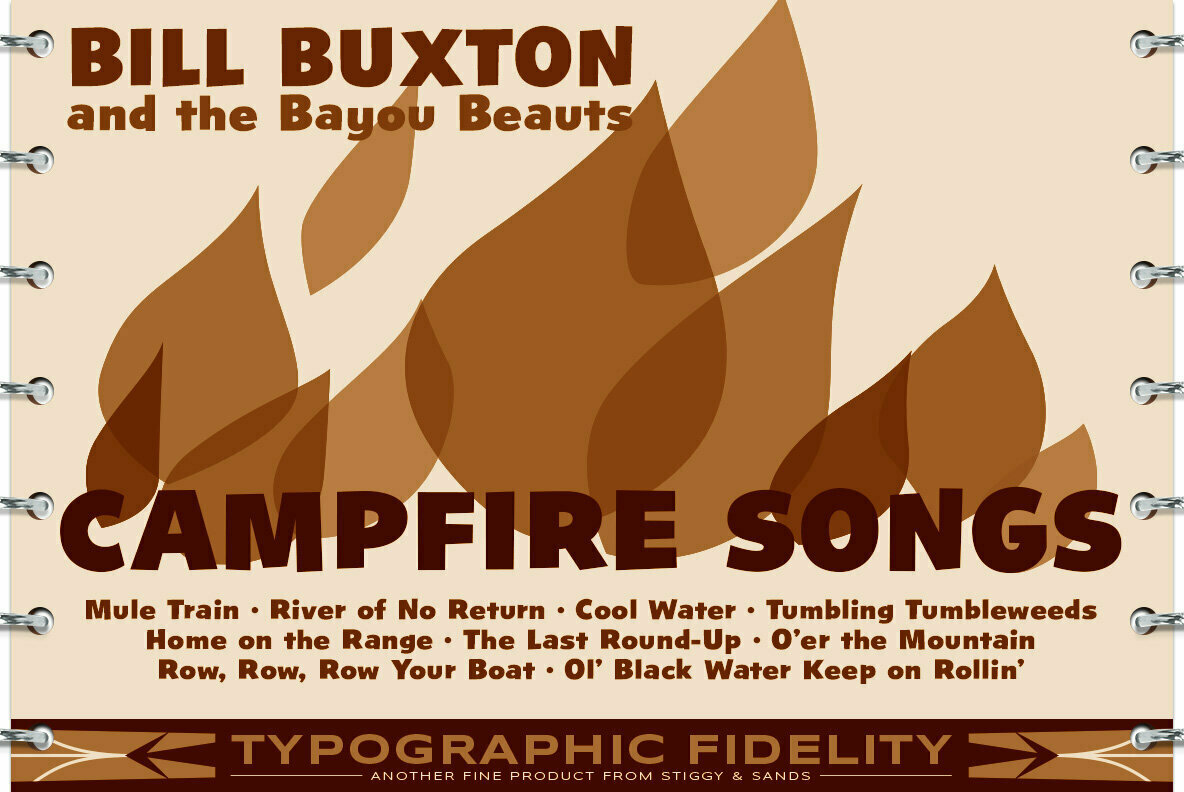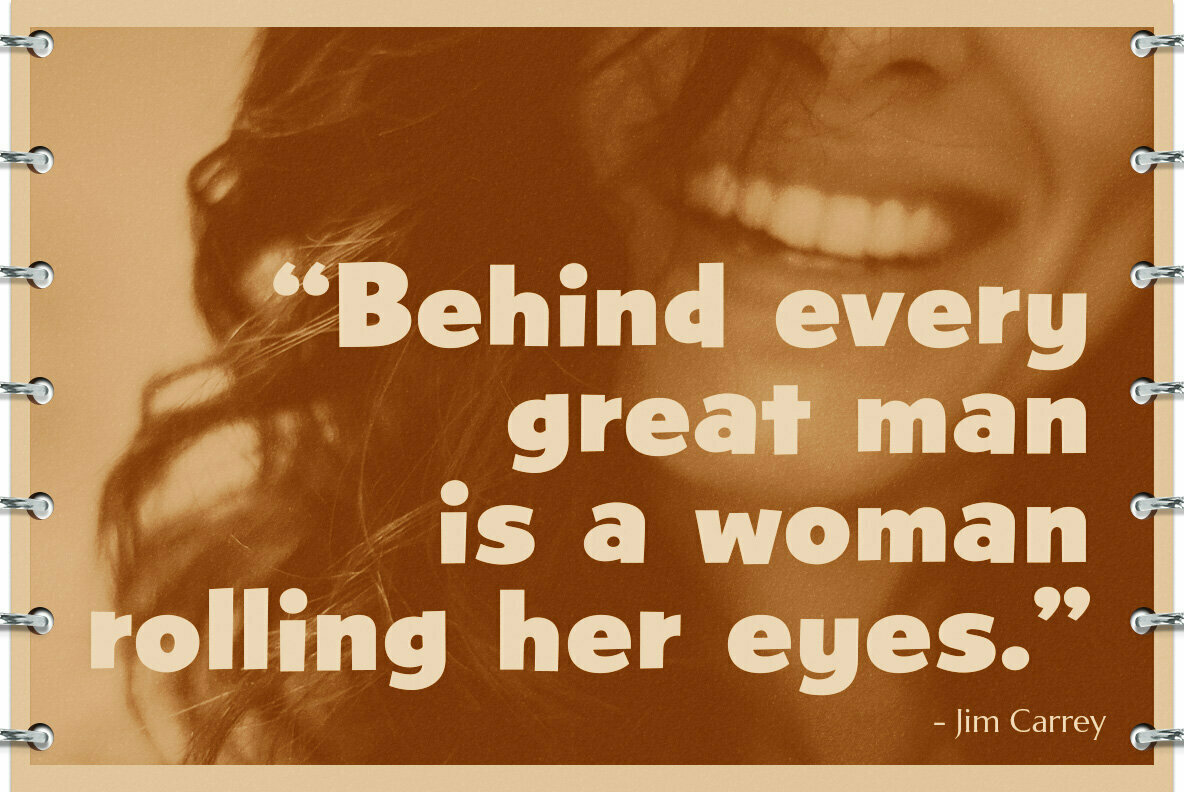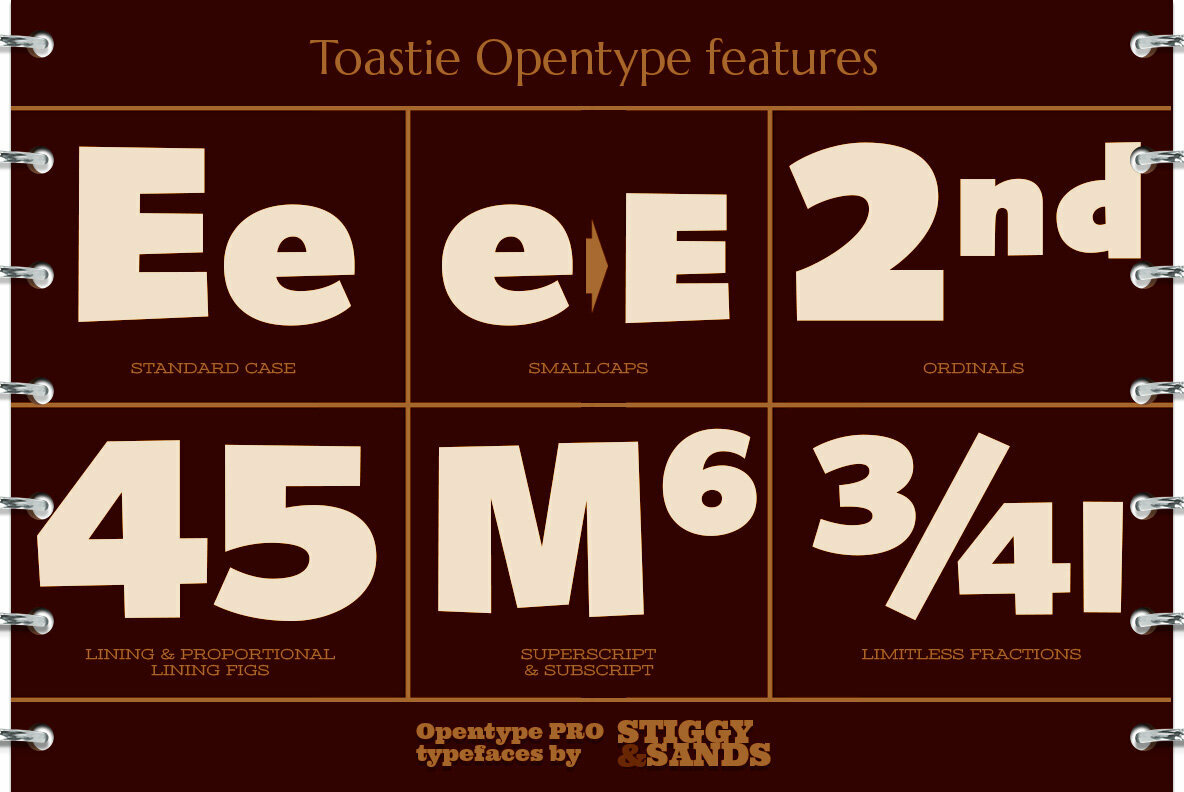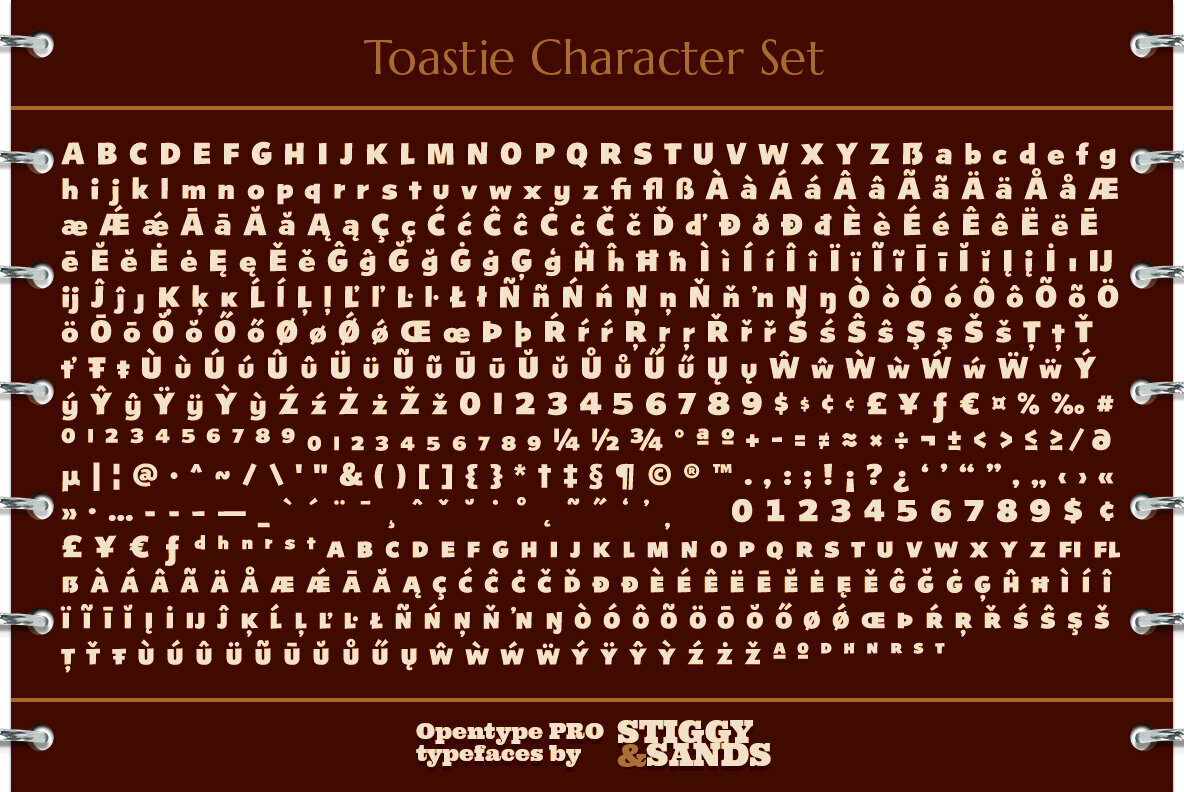
Toastie Font
Toastie Regular
Toastie began as a digitization of a film typeface from LetterGraphics known simply as "Flair 312". The original specimen included standard Capitals and Lowercase and Numerals, a bare bones character set.
We've fleshed out the Toastie font to include a full standard character set, an extended international set, SmallCaps, etc. so it can be a powerhouse animated typestyle.
Opentype features include:
- Full set of Inferiors and Superiors for limitless fractions.
- Tabular and Proportional figure sets.
- Stylistic Alternates for a variation of the lowercase r characters.
Approx. 591 Character Glyph Set: Toastie comes with a glyphset that includes standard & punctuation, international language support, and additional features.